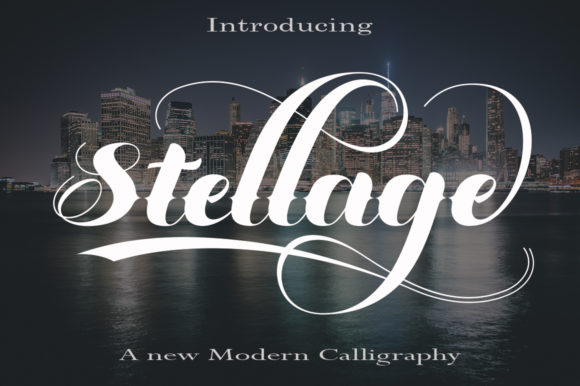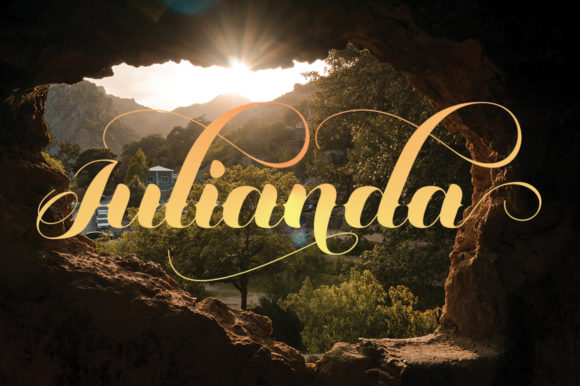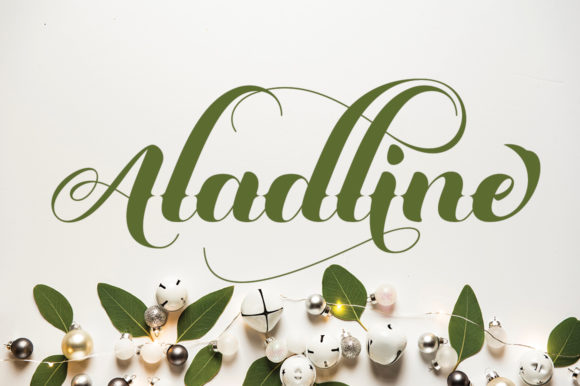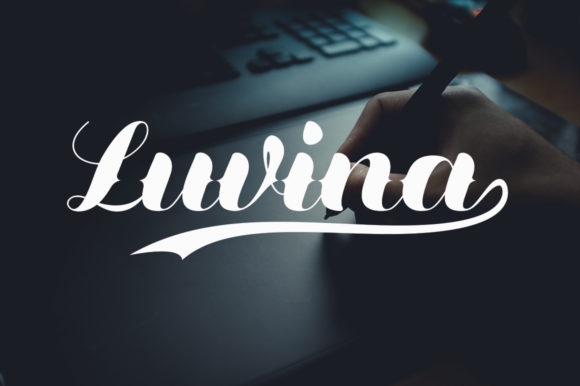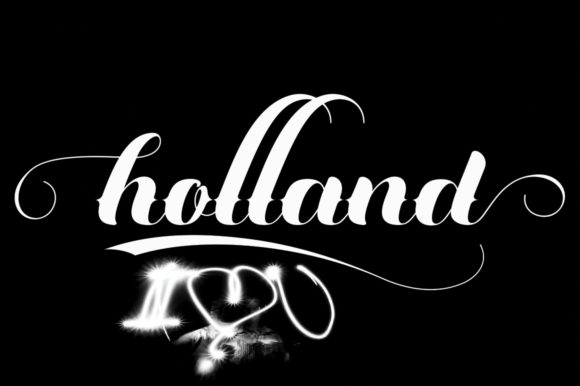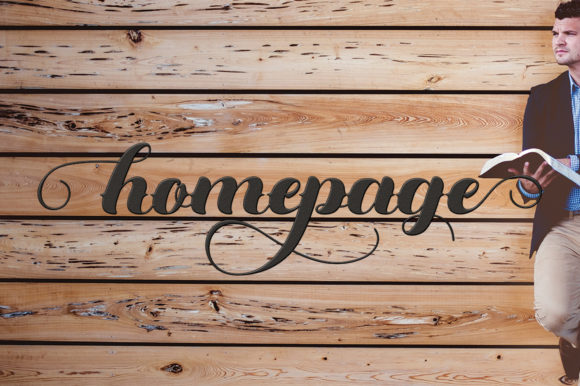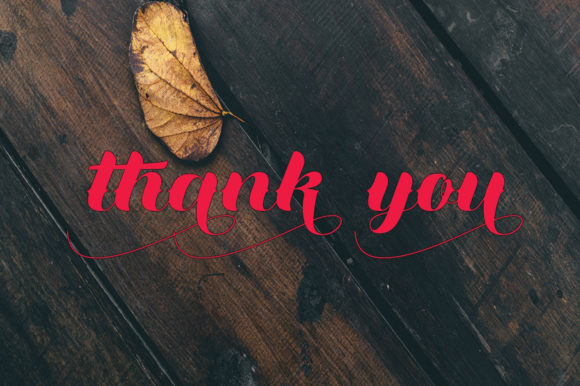
Stellage Font
About Stellage Font
Stellage is a gorgeous calligraphy script featuring a varied base line, fine lines, and topped off with classic and elegant touches.
Stellage displays stylish calligraphy alternate characters. Includes initial letters and terminals, alternatives, ligatures and multiple language support.